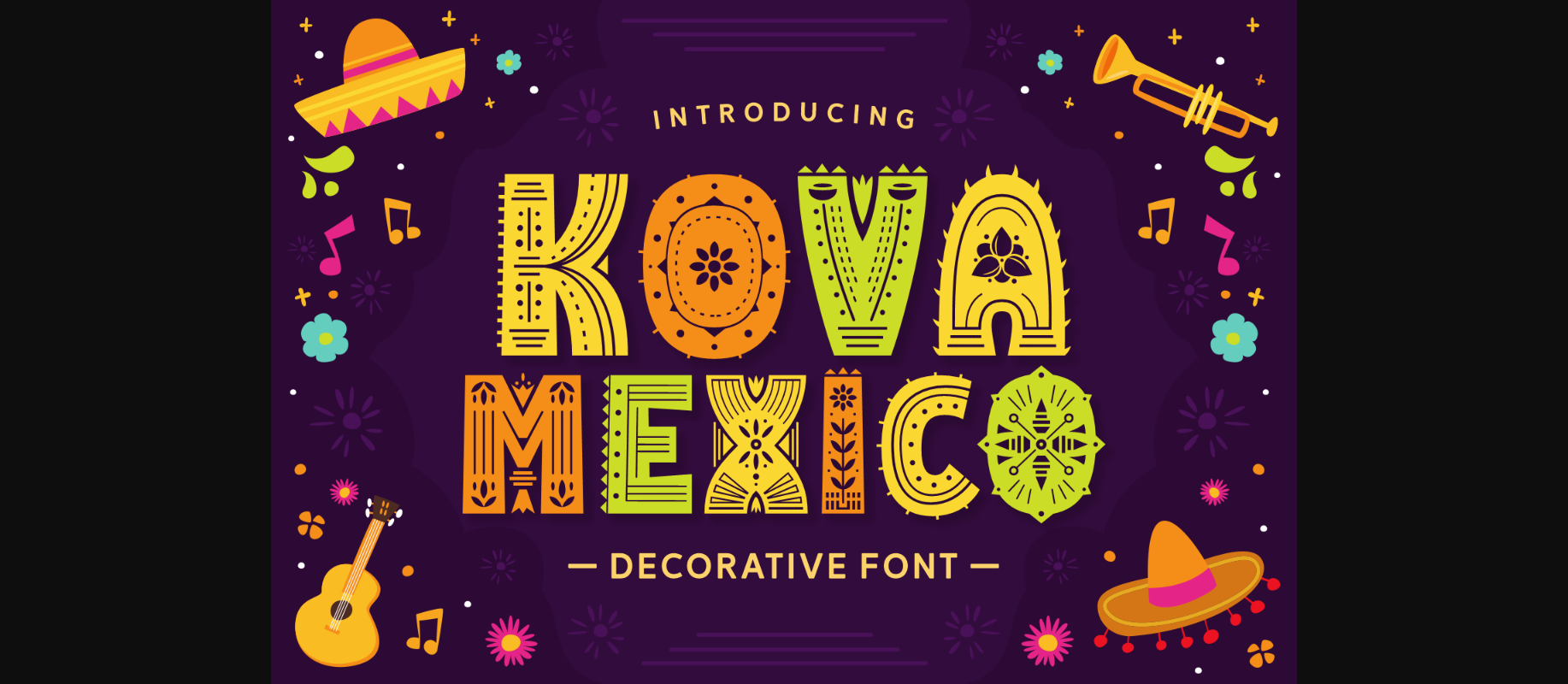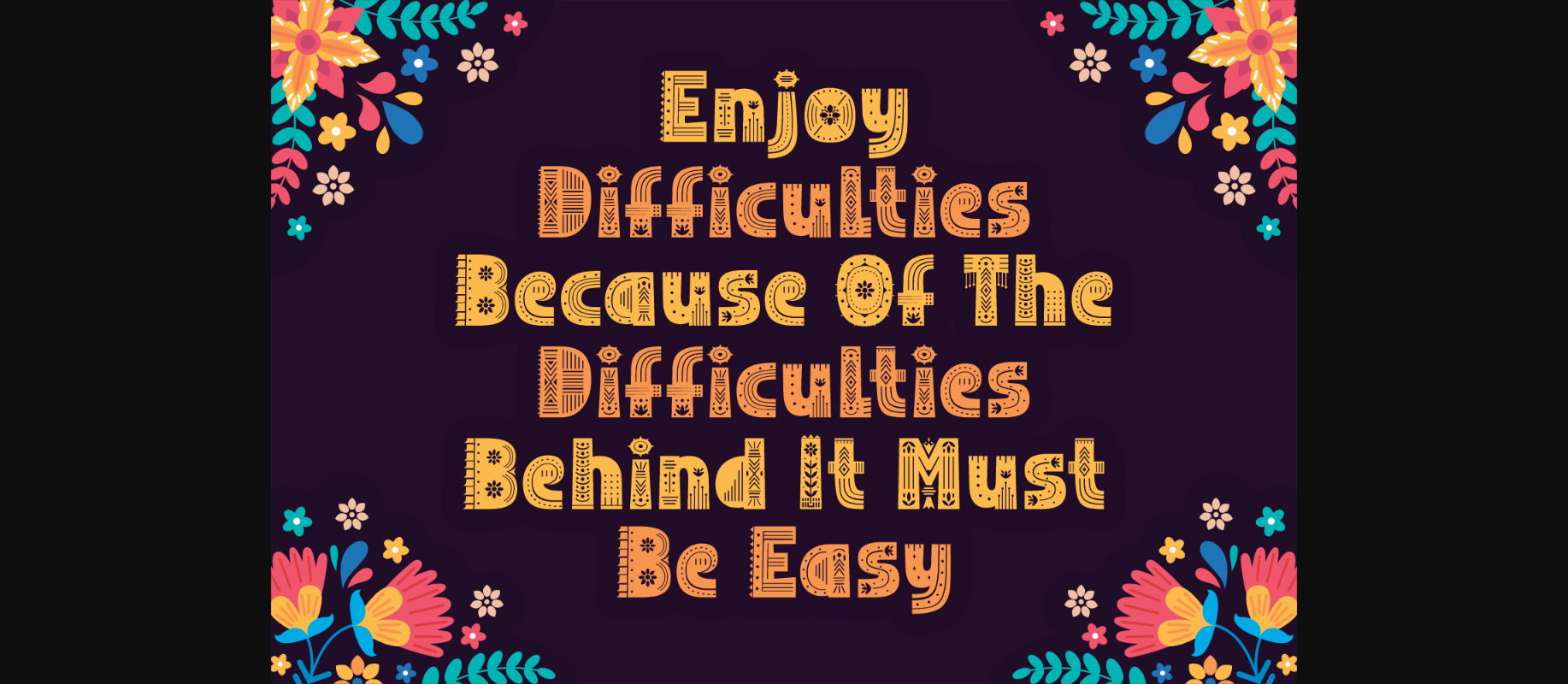
About Kova Mexico Font
Kova Mexico is a vibrant and playful decorative font inspired by Mexican culture. The letters feature colorful patterns and designs reminiscent of traditional Mexican textiles, with elements like cacti, sombreros, and chili peppers adding to the festive feel. This font is perfect for adding a touch of fun and personality to any design related to Mexico or Latin America.